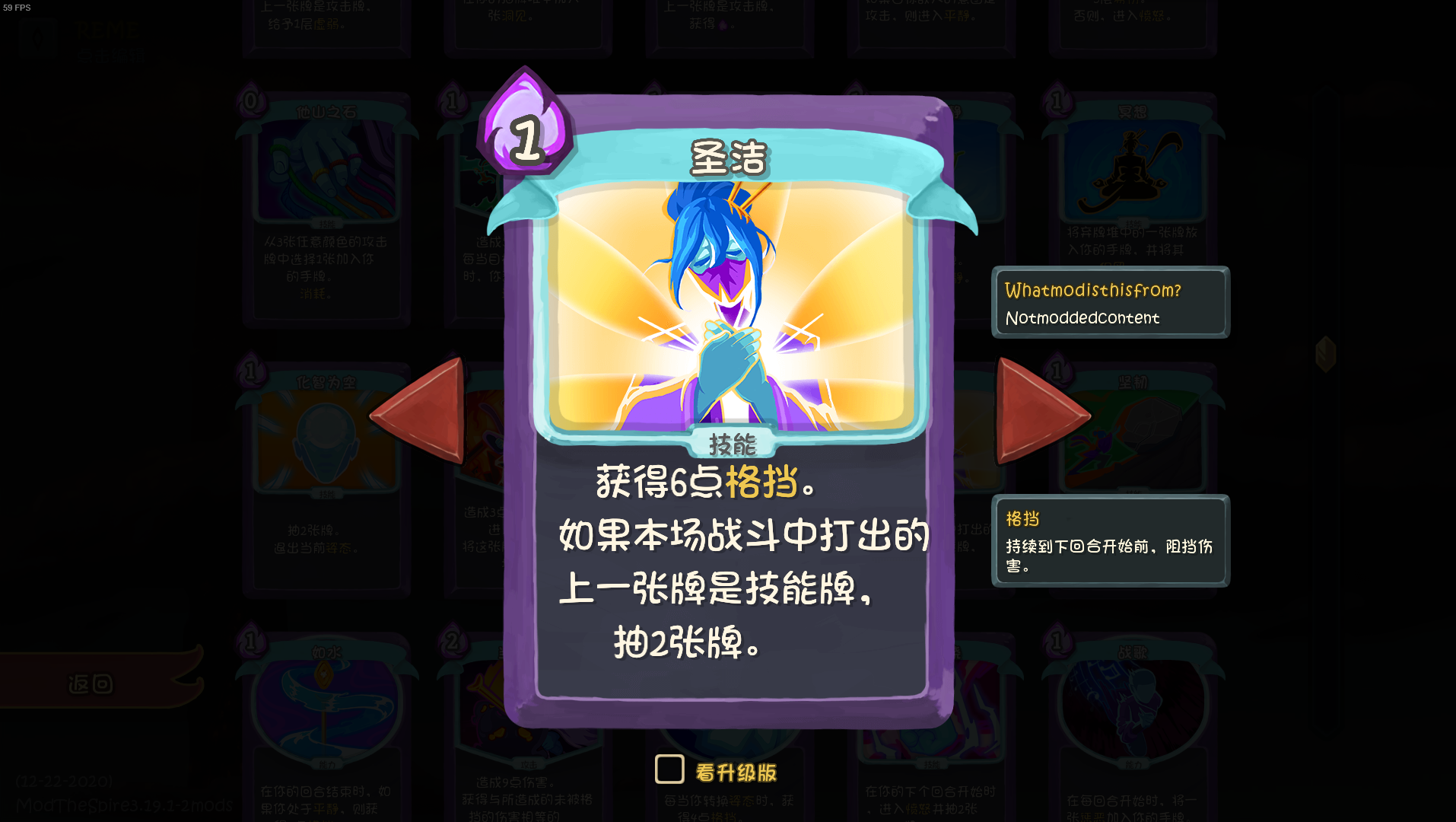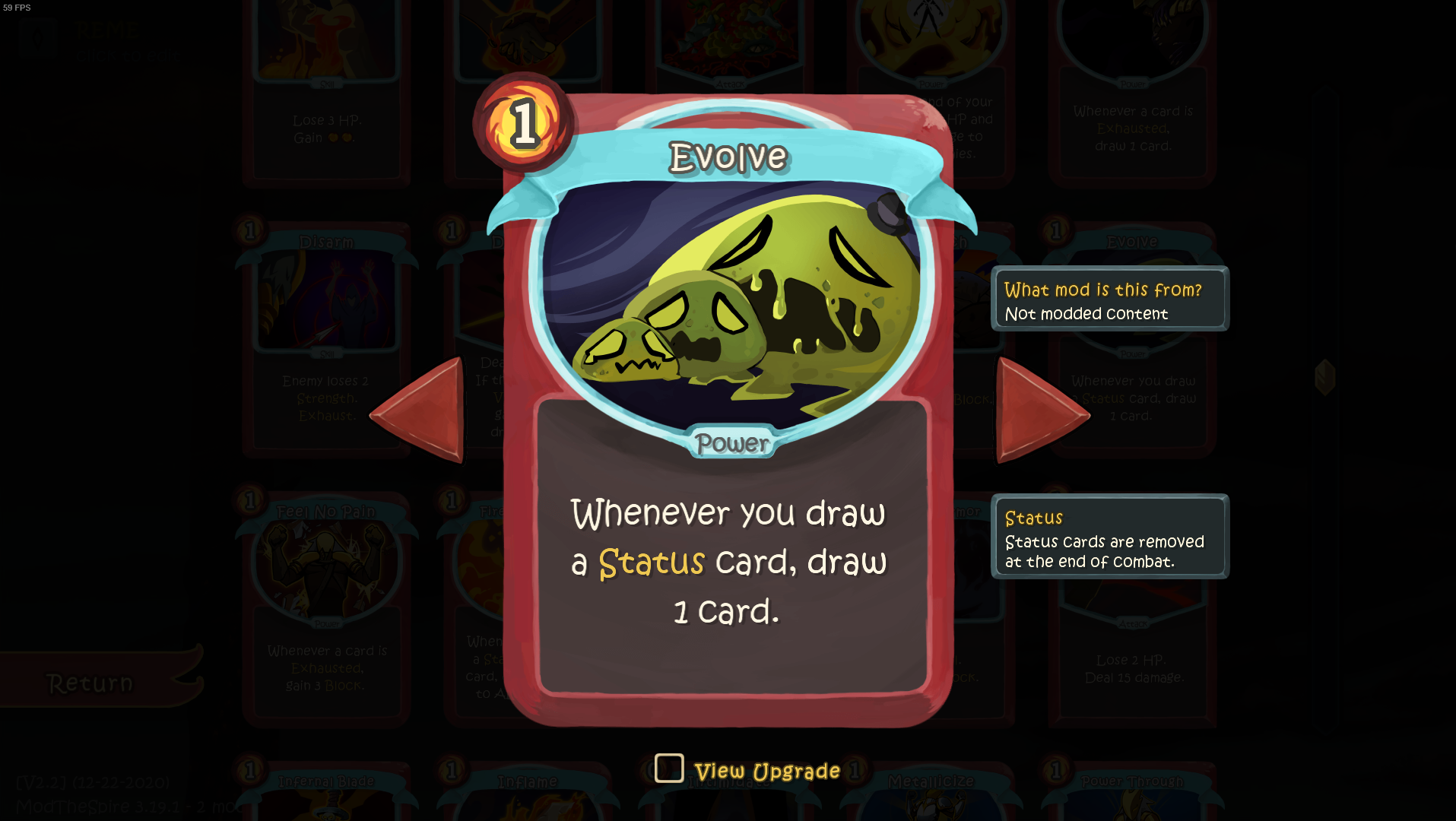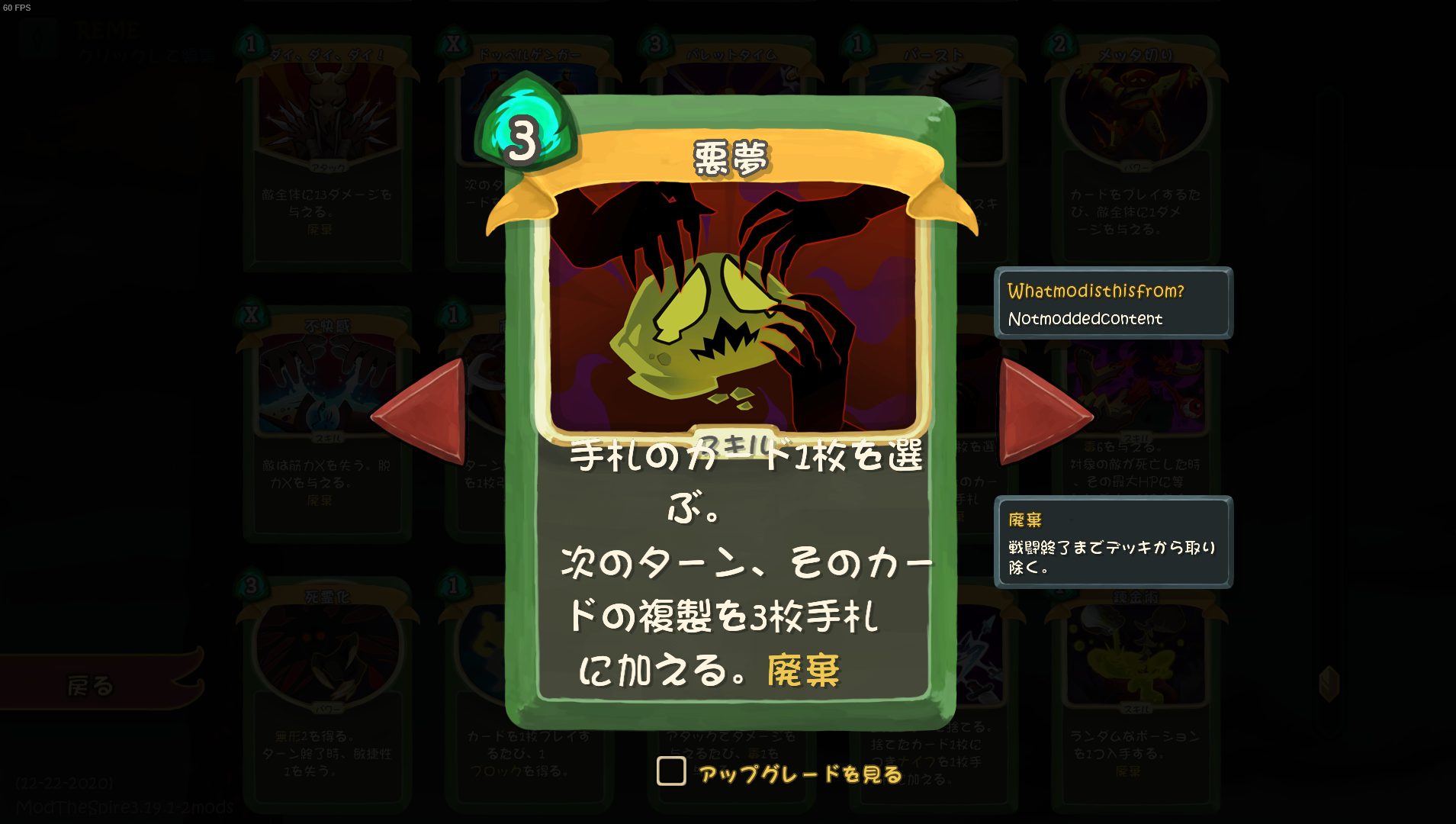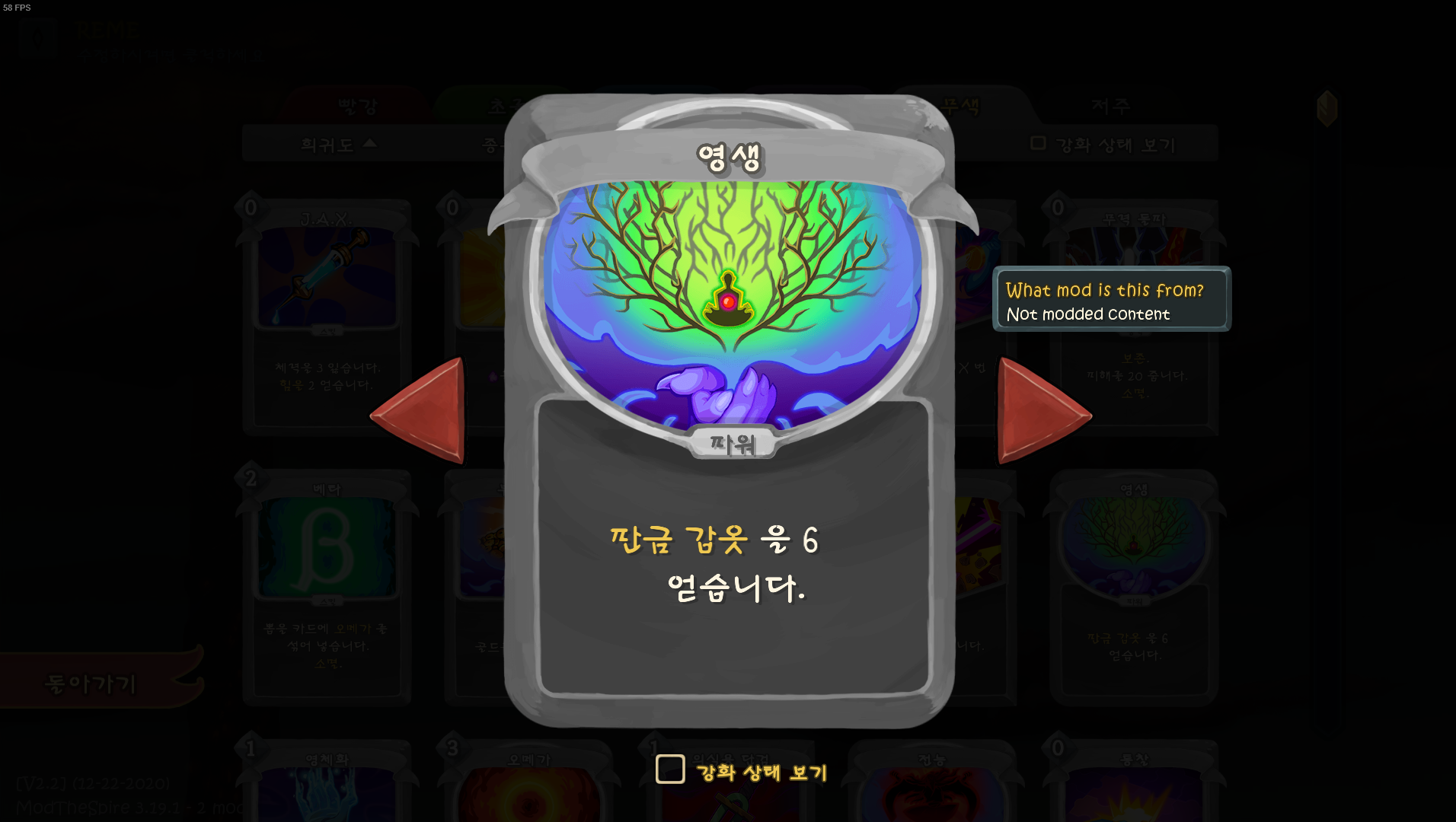
loli-font
Embrace the Cuteness: loli-font Mod for Slay the Spire
Are you ready to add a touch of undeniable charm to your Slay the Spire experience? The loli-font mod injects a dose of adorable sweetness into every corner of the game, transforming the familiar interface with a delightfully whimsical typeface. Prepare to see your card descriptions, enemy names, and even the spire’s daunting challenges presented in a way that’s both endearing and visually distinct.
A Visual Transformation
The core of the loli-font mod lies in its complete overhaul of the game’s textual presentation. Every piece of in-game text has been carefully replaced to adopt a “kawaii” aesthetic, ensuring a consistent and charming new look throughout your runs. This isn’t just a minor tweak; it’s a comprehensive visual upgrade that breathes new life into the tactical card combat you know and love.
Key Features of the loli-font Mod
- Complete Font Overhaul: Experience Slay the Spire with a brand new, adorable font applied to all in-game text.
- Enhanced Aesthetic: Adds a unique and charming “kawaii” visual style to your gameplay.
- Immersive Charm: Makes even the most challenging encounters feel a little bit sweeter.
More Than Just a Font
While the name might be playful, the loli-font mod offers a genuine way to personalize your Slay the Spire journey. It’s a testament to the creativity within the Slay the Spire modding community, offering a fun and lighthearted alteration that doesn’t interfere with the game’s core mechanics. If you’re looking for a way to make your climbs up the Spire uniquely yours, or simply appreciate a bit of extra cuteness in your gaming, this mod is an excellent choice.